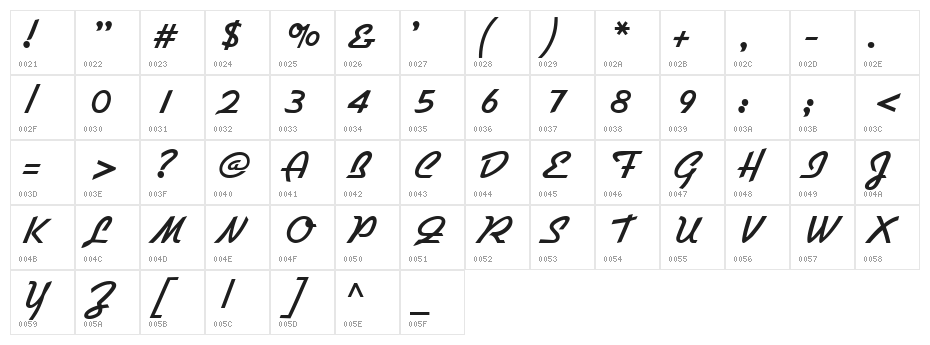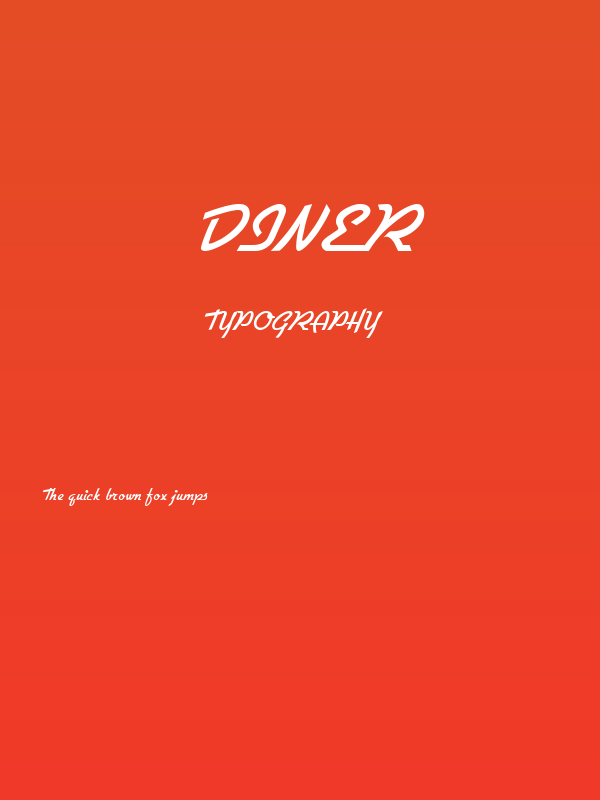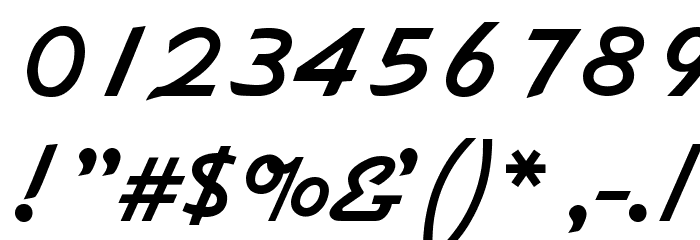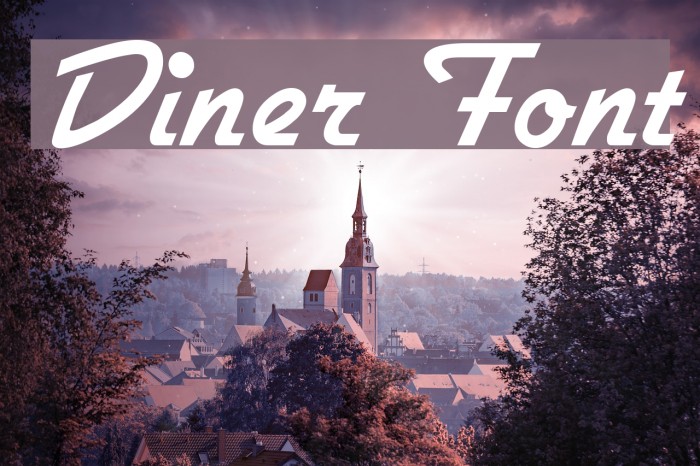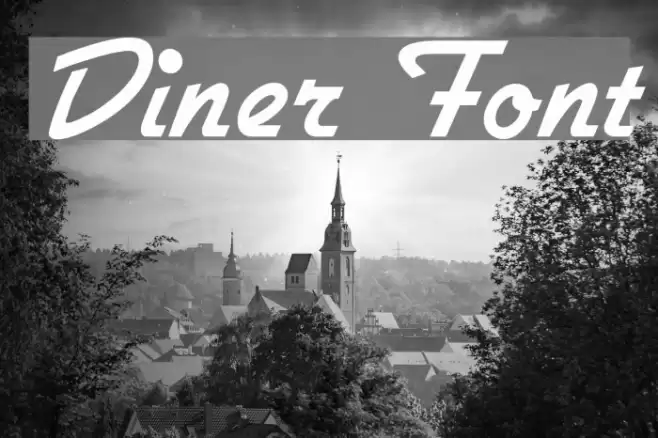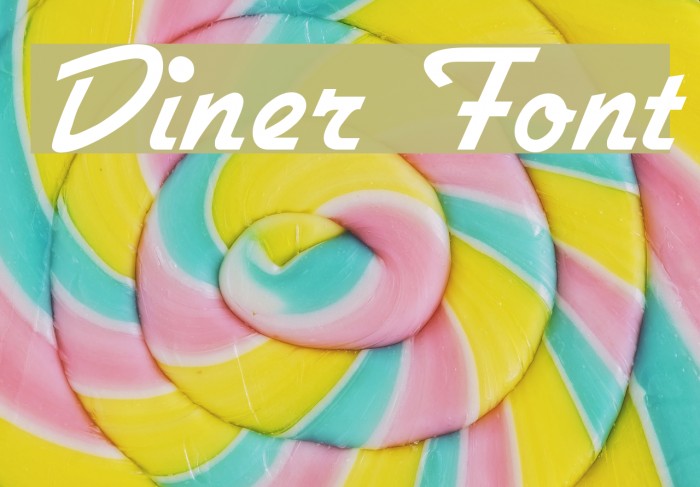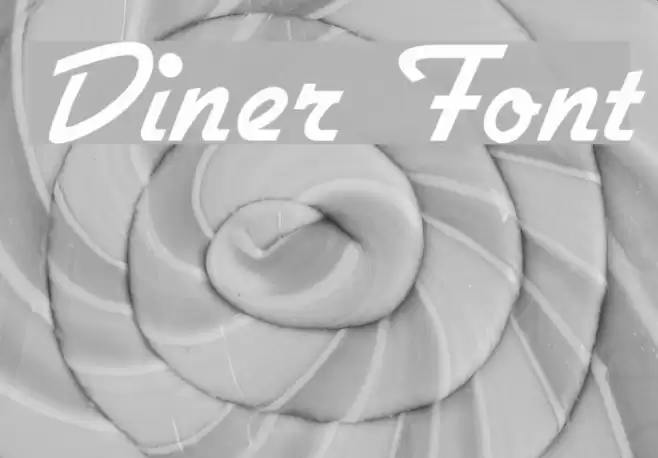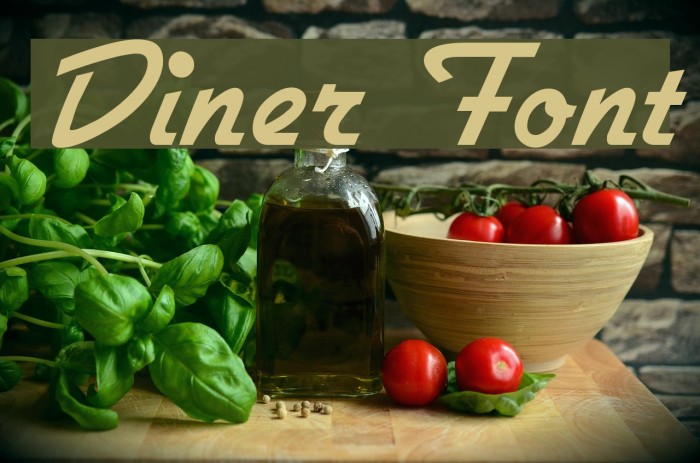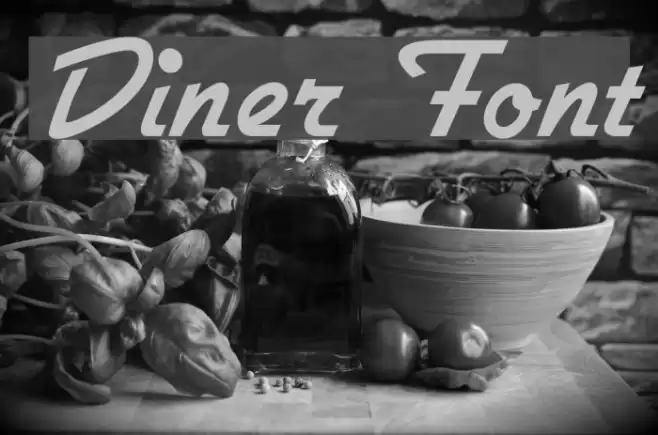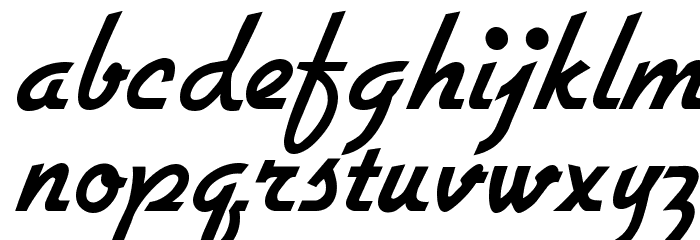
Diner Font
| Progetti proposti | Ideal for retro-themed designs, restaurant menus, vintage posters, and branding that requires a lively and nostalgic touch. |